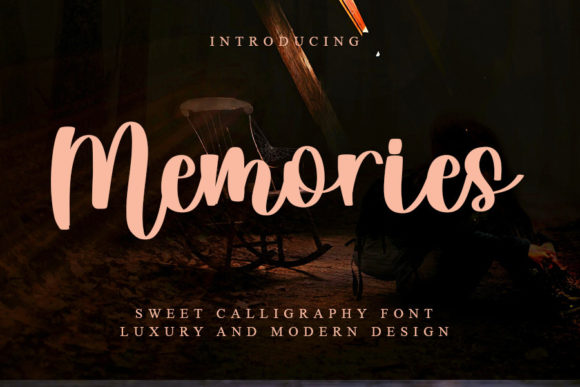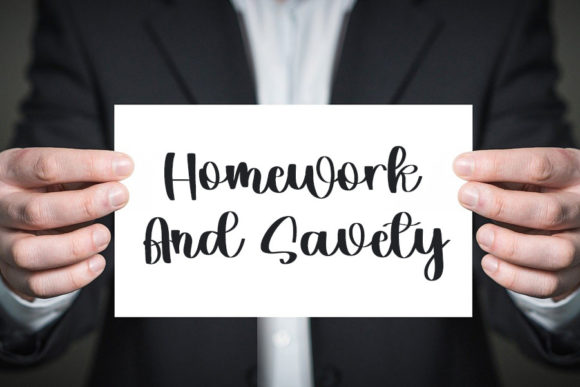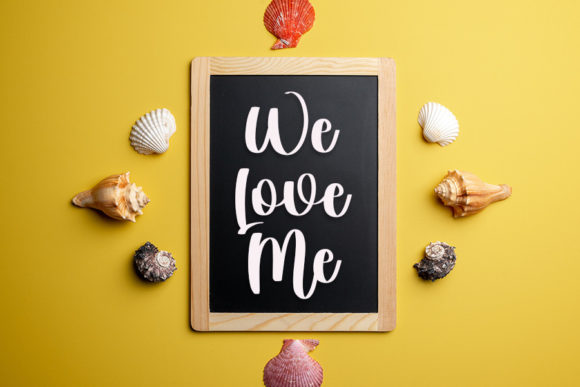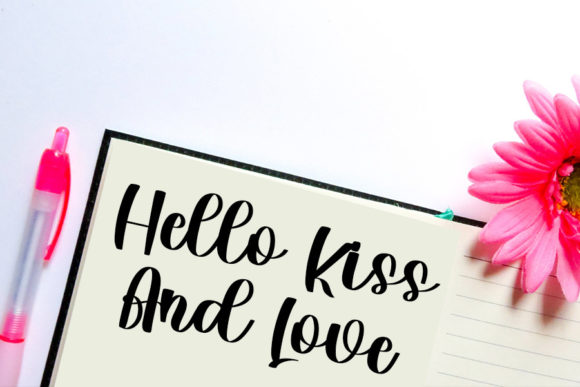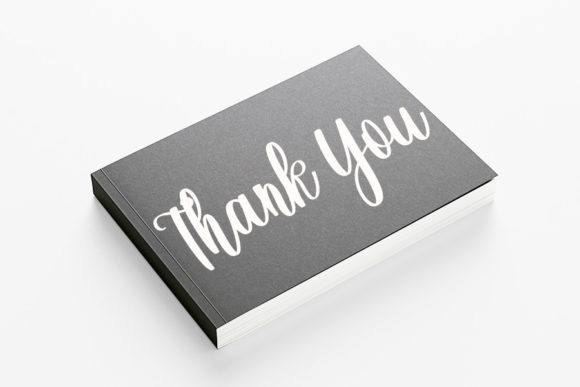
Memories Font
About Memories Font
Memories is a sweet, round lettered and romantic script font. It has a classy, elegant and modern look that can be used for logos, branding, invitations, stationery, wedding designs, social media posts, and much more!